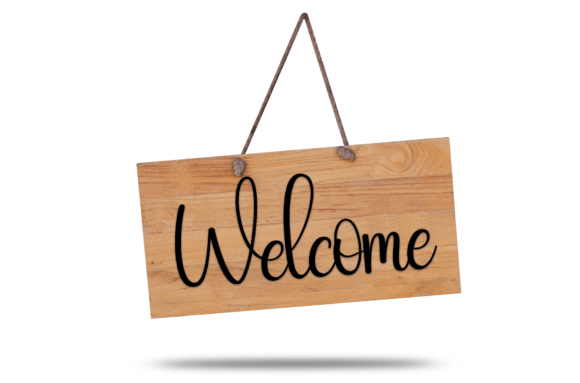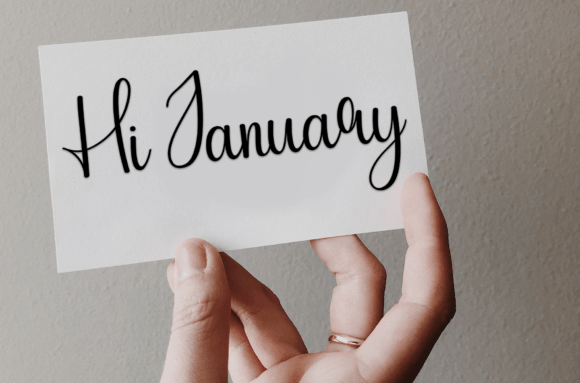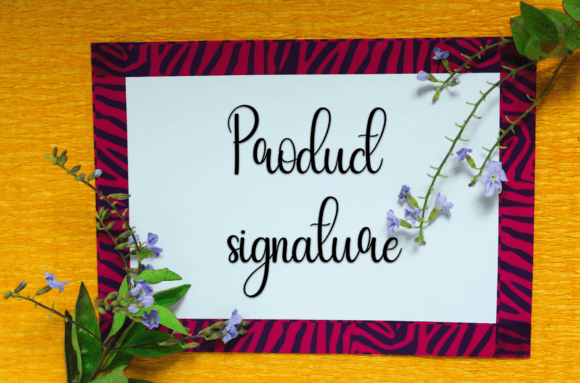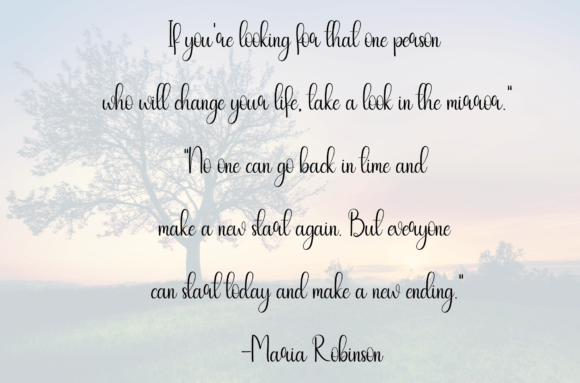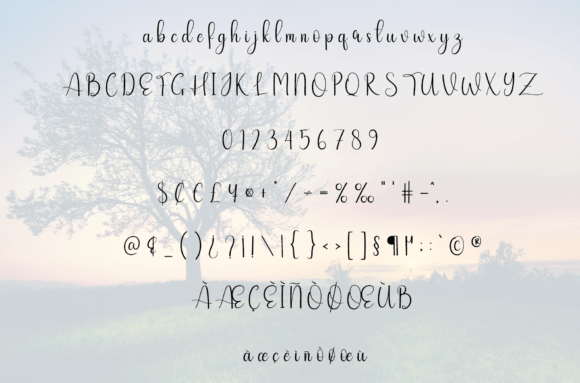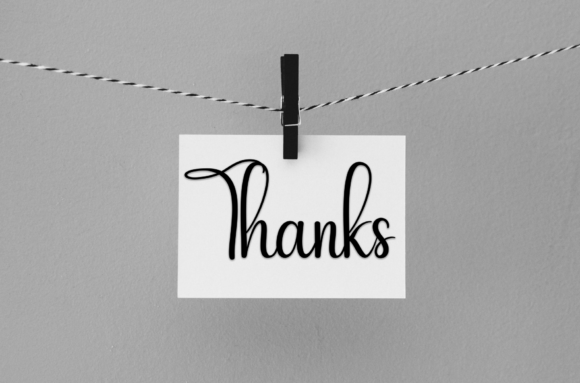
The Sweet Charm of Barbecue Font: A Designer’s Delight
I’ll never forget the time I was working on a wedding invitation project, and my client asked me to create a custom design that exuded warmth and elegance. As I scrolled through my font library, I stumbled upon Barbecue, a sweet and friendly handwritten font that instantly caught my attention. Its fun and relaxed vibe was exactly what I needed to bring the design to life. In this article, I’ll share my experience with Barbecue, its features, and how to make the most of it in your designs.
A Personal Review: What I Love About Barbecue
Here’s what makes Barbecue a standout font:
- ✨ Sweet and Friendly: Barbecue has a warm, inviting feel that’s perfect for creating a sense of comfort and approachability in your designs.
- ✅ Highly Legible: The font is clear and easy to read, making it ideal for body text, headings, and titles.
- 🎉 Versatile: Barbecue works well for a variety of design projects, from wedding invitations and cards to branding and packaging.
While Barbecue is an excellent font, there are a few things to keep in mind:
- 🤔 Limited Formality: Barbecue is a casual font, so it may not be the best choice for formal or corporate designs.
- ⚠️ Glyph Limitations: As with any font, there may be limitations to the number of glyphs and special characters available.
A Practical Guide: Using Barbecue in Your Designs
The Story Behind Barbecue
Barbecue was designed with the intention of creating a friendly and approachable font that would bring a sense of warmth and comfort to designs. The font’s creator aimed to craft a font that would be perfect for wedding invitations, cards, and other designs that require a personal touch.
Q: What type of designs is Barbecue best suited for?
A: Barbecue is ideal for designs that require a friendly and approachable feel, such as wedding invitations, cards, and other personal designs.
Q: Is Barbecue a difficult font to read?
A: No, Barbecue is a highly legible font, making it easy to read in both print and digital formats.
Q: Can I use Barbecue with other fonts?
A: Yes, Barbecue can be paired with other fonts to create a unique and visually appealing design. Experiment with different font combinations to find the perfect pairing.